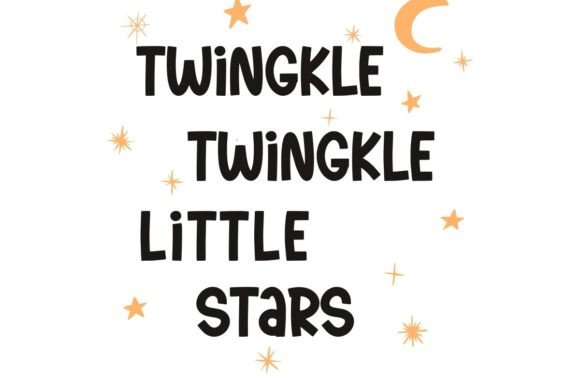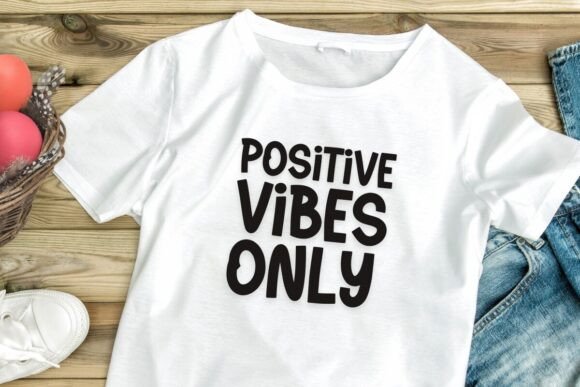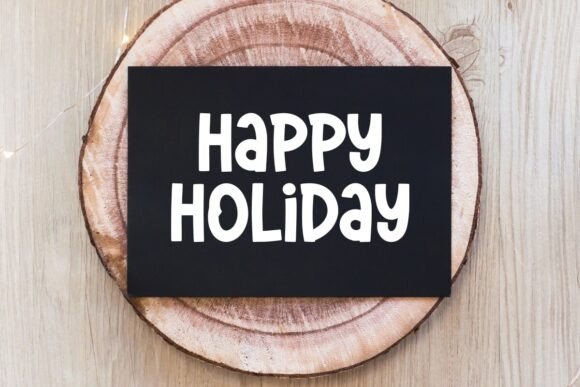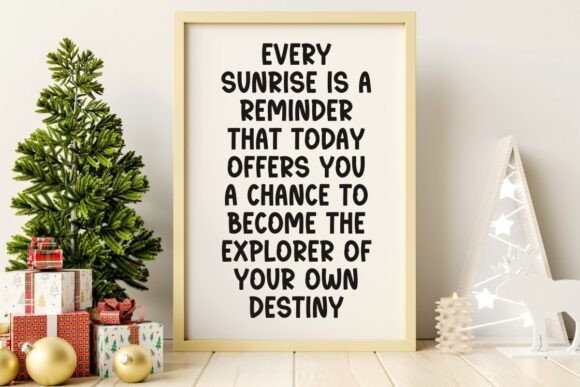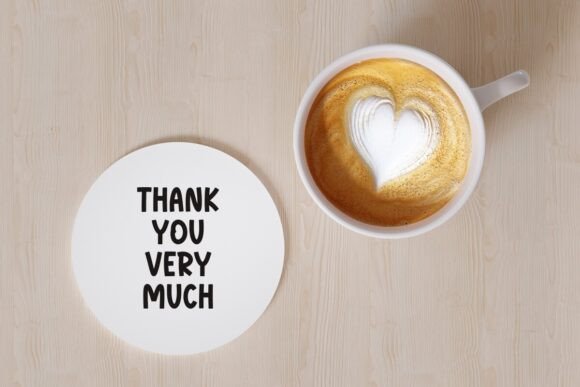
Introduction to Dancing Twinkle Font
Dancing Twinkle is Beautiful and Bold display font depicted with a touch of elegance, perfect for your favorite projects.
Fall in love with its incredibly distinct and timeless style, and use it to create spectacular designs .
Key Features of Dancing Twinkle Font
Why Choose Dancing Twinkle Font?
Dancing Twinkle Font offers exceptional quality and versatility, making it a valuable addition to your design toolkit. Whether you’re creating for personal projects or commercial use, Dancing Twinkle Font delivers professional results.